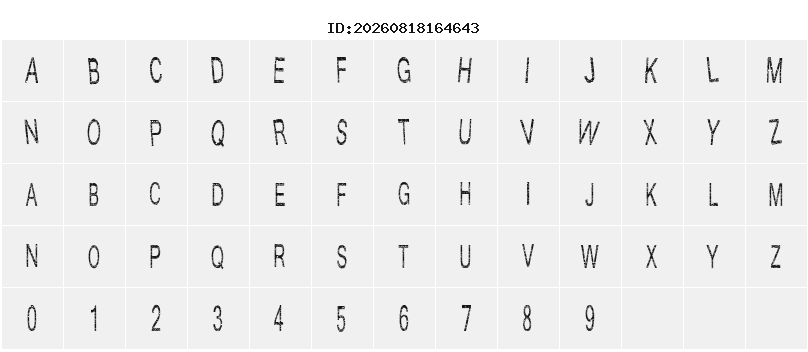
Slightly Intoxicated Preview
• Font Name: Slightly Intoxicated
• Font ID: Slightly Intoxicated:Version 1.00
• Full Font Name: Slightly Intoxicated
• Version: Version 1.00 January 19, 2013, initial release
• PostScript Name: SlightlyIntoxicated
• Designer: Tom Kolodziejski
About Slightly Intoxicated.ttf
Slightly Intoxicated.ttf is a modern, elegant sans-serif font designed for ultimate readability and visual harmony. Perfect for branding, headlines, web design, and print materials.